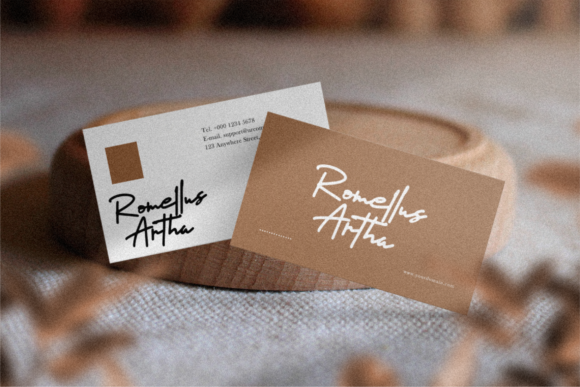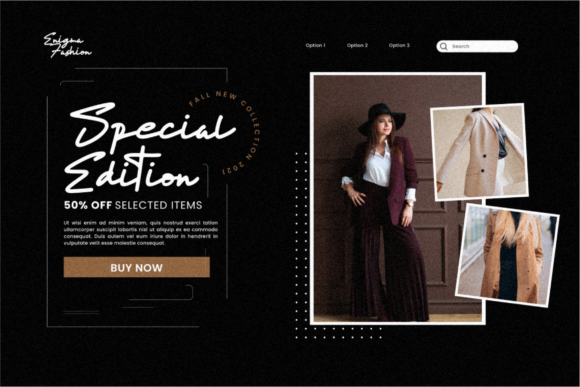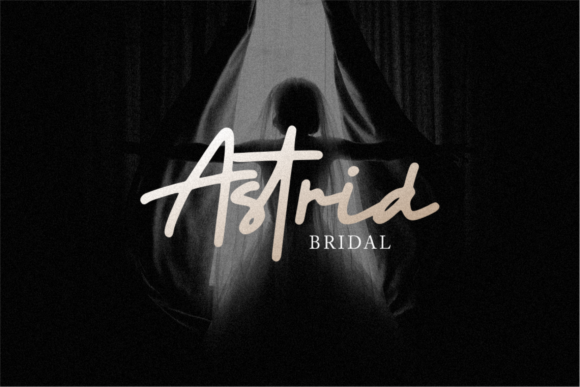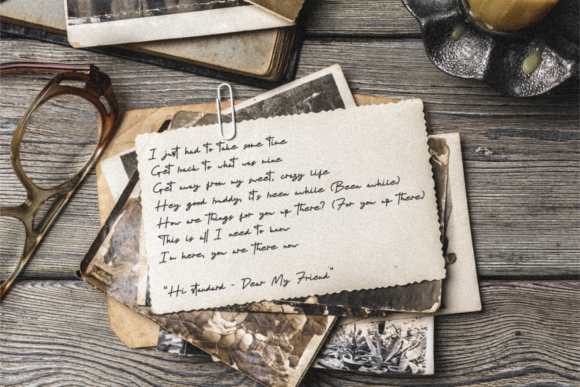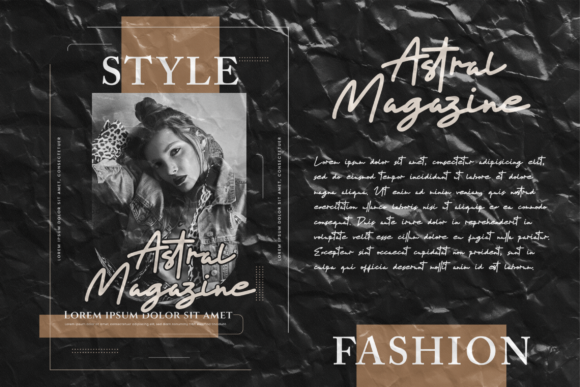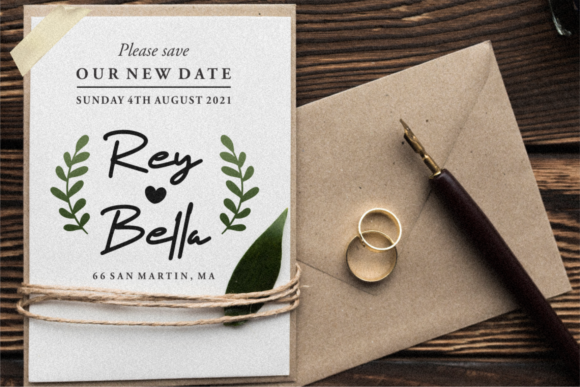
The Perfect Blend of Nostalgia and Creativity
Have you ever found yourself staring at a blank canvas, struggling to bring your latest design project to life? You know the feeling – it’s like trying to capture a fleeting moment in time, but the right words or images just won’t come together. It’s in these moments that we turn to our trusty fonts, hoping to spark some inspiration and breathe new life into our creations.
Enter the Bitter Ballen Font, a stylish and one-of-a-kind script font that adds a touch of nostalgia to every project it’s used in. With its unique, asymmetric design, this font is perfect for designers looking to add a personal touch to their work. Whether you’re working on a branding project, creating a beautiful logo, or crafting a stunning piece of digital art, the Bitter Ballen Font is the perfect companion to help you bring your vision to life.
Bitter Ballen Font Key Features
- Font Family: Bitter Ballen is a typeface with a distinctive, modern design, combining elements of sans-serif and script fonts.
- Unique Characteristics: Bitter Ballen features a unique blend of geometric and organic elements, resulting in a highly legible and visually striking font.
- Font Weight: Bitter Ballen includes a range of font weights, from Light to Bold, allowing designers to create a variety of visual effects and moods.
Bitter Ballen Font Review
I recently had the chance to work with the Bitter Ballen font, and I must say, it’s a unique addition to any design project. ✨ Here are some things that really stand out:
- Expressive and emotive characters: The Bitter Ballen font has a beautiful, hand-drawn feel that really conveys emotion and personality.
- High contrast: The font’s high contrast between thick and thin lines makes it perfect for adding visual interest to text.
- Customizable: The font is available in a range of weights and styles, making it easy to find the perfect fit for your project.
- Readability at small sizes: While the font looks great at larger sizes, it can be difficult to read at smaller sizes due to its unique letterforms.
- Limited language support: The font may not be as comprehensive in terms of language support as some other fonts, which could be a problem for projects that require multiple languages.
Overall, I think the Bitter Ballen font is a great choice for projects where you want to add some personality and flair. Just be aware of its limitations and make sure it’s the right fit for your project.
Tips for Getting the Most Out of the Bitter Ballen Font
Use the Bitter Ballen font for modern and clean designs, such as:
1. Headlines and titles.
2. Logos and branding materials.
3. Digital products and apps.
4. Editorial and publishing materials.
The Bitter Ballen font is commonly used in:
1. Modern and minimalist designs.
2. Digital products and apps.
3. Editorial and publishing materials.
4. Branding and marketing materials.
Alternatives to Bitter Ballen FontThe Bitter Ballen Font is a sans-serif typeface known for its clean lines, geometric shapes, and a touch of elegance. However, it may not suit every design project. Here are some alternatives that designers can consider.